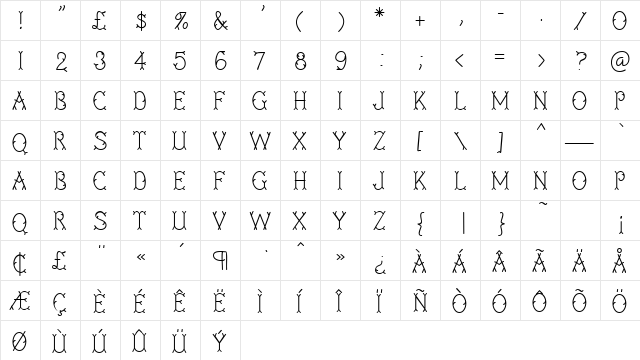
Twigglee Regular
Design Context for Twigglee Typeface
Twigglee takes a measured approach to typography — its balanced proportions and neutral character make it a reliable workhorse for both digital and print work.